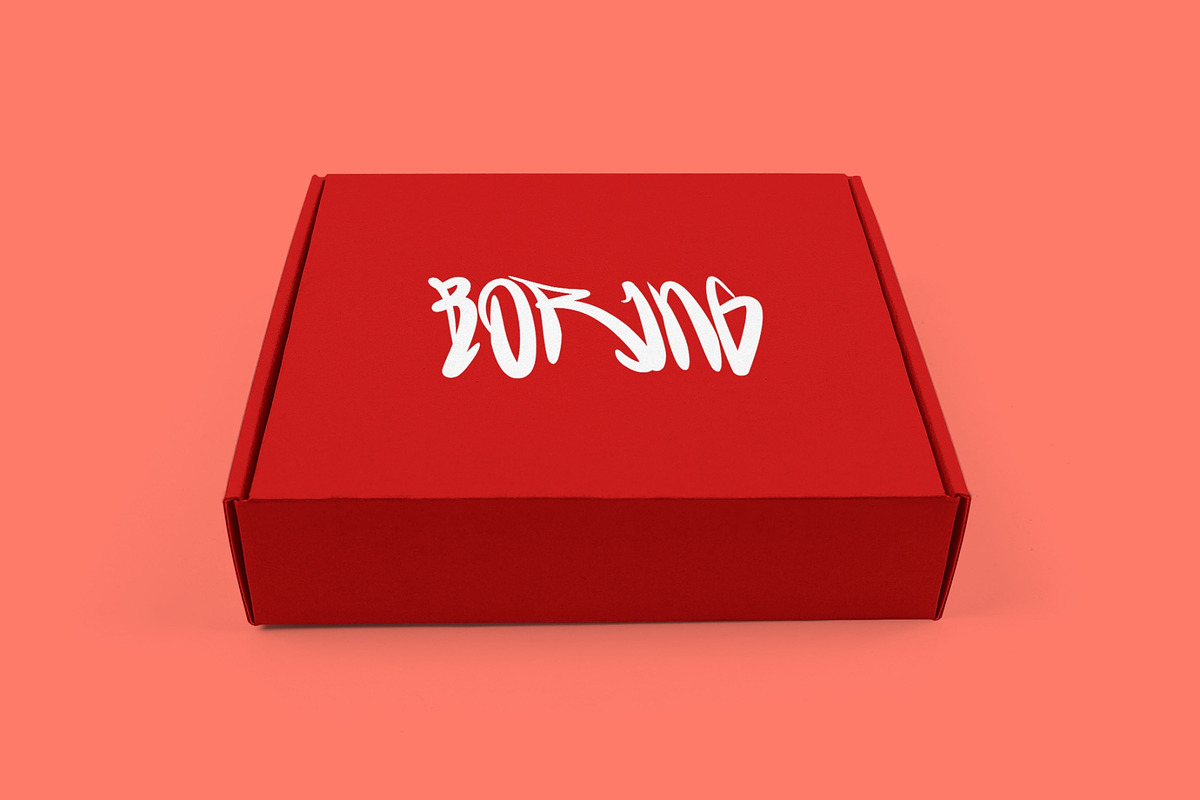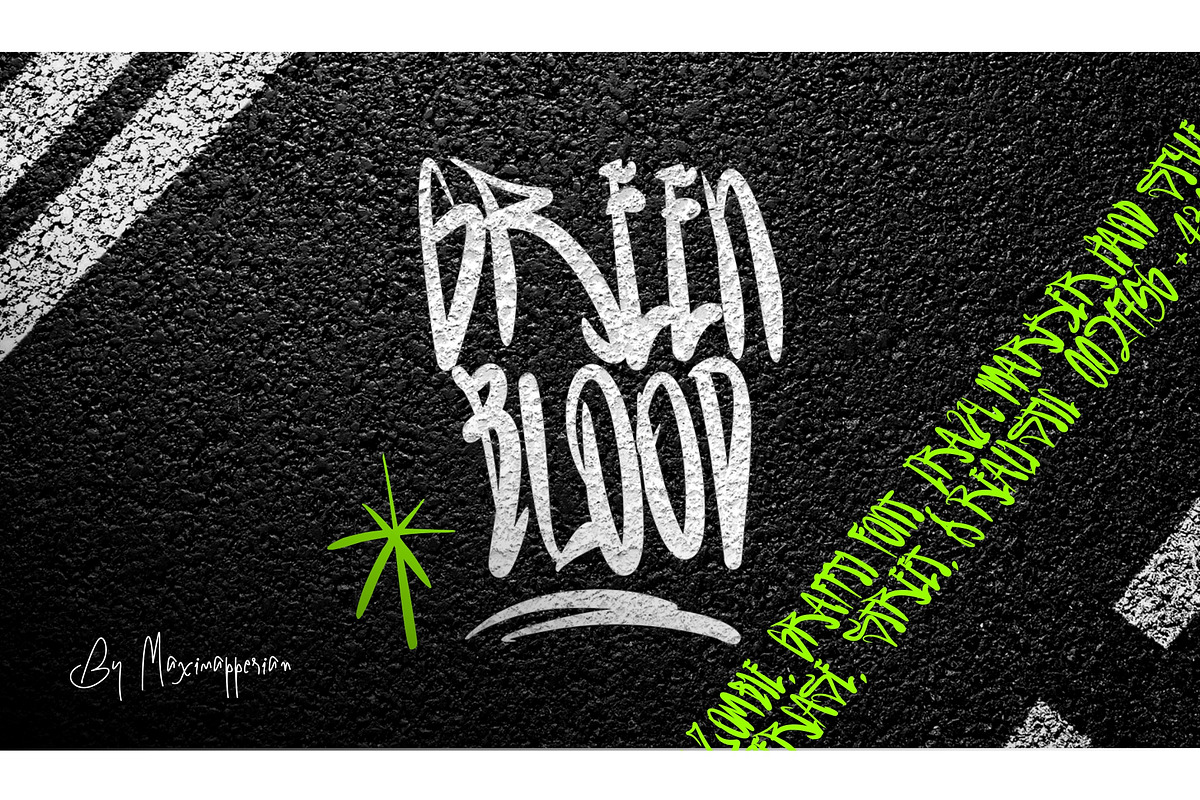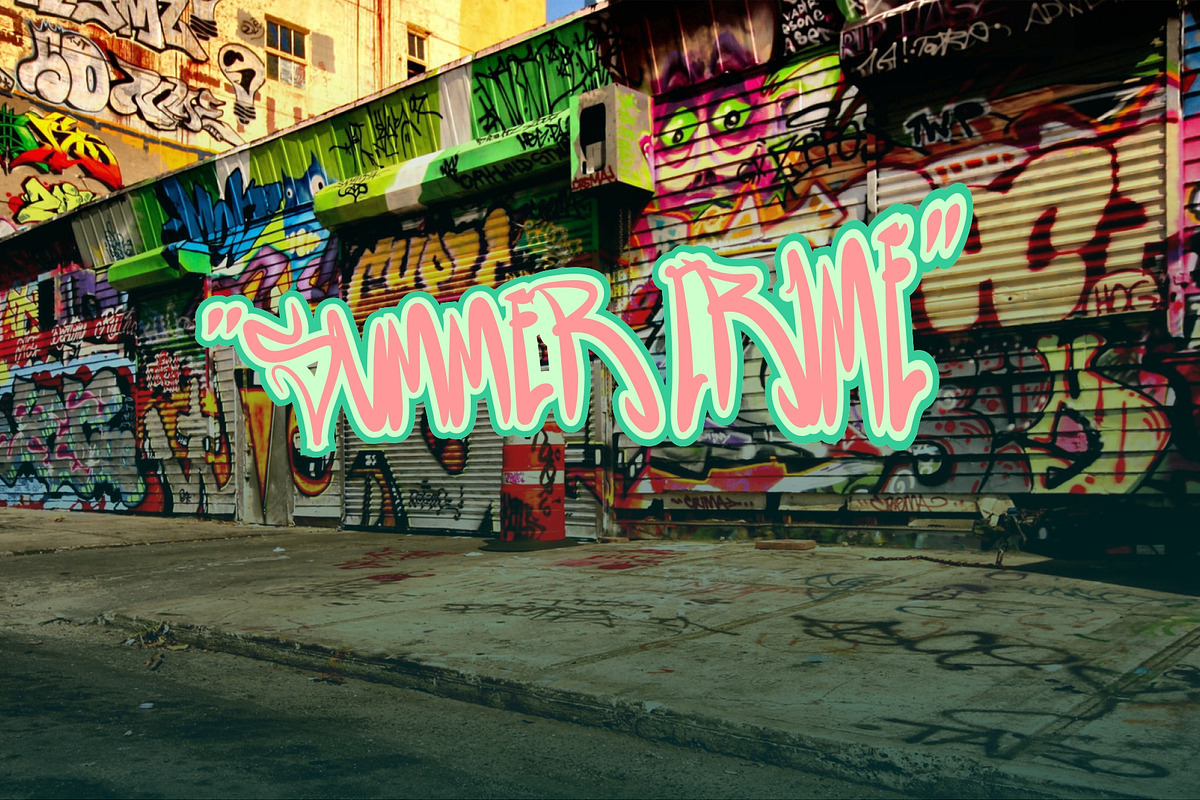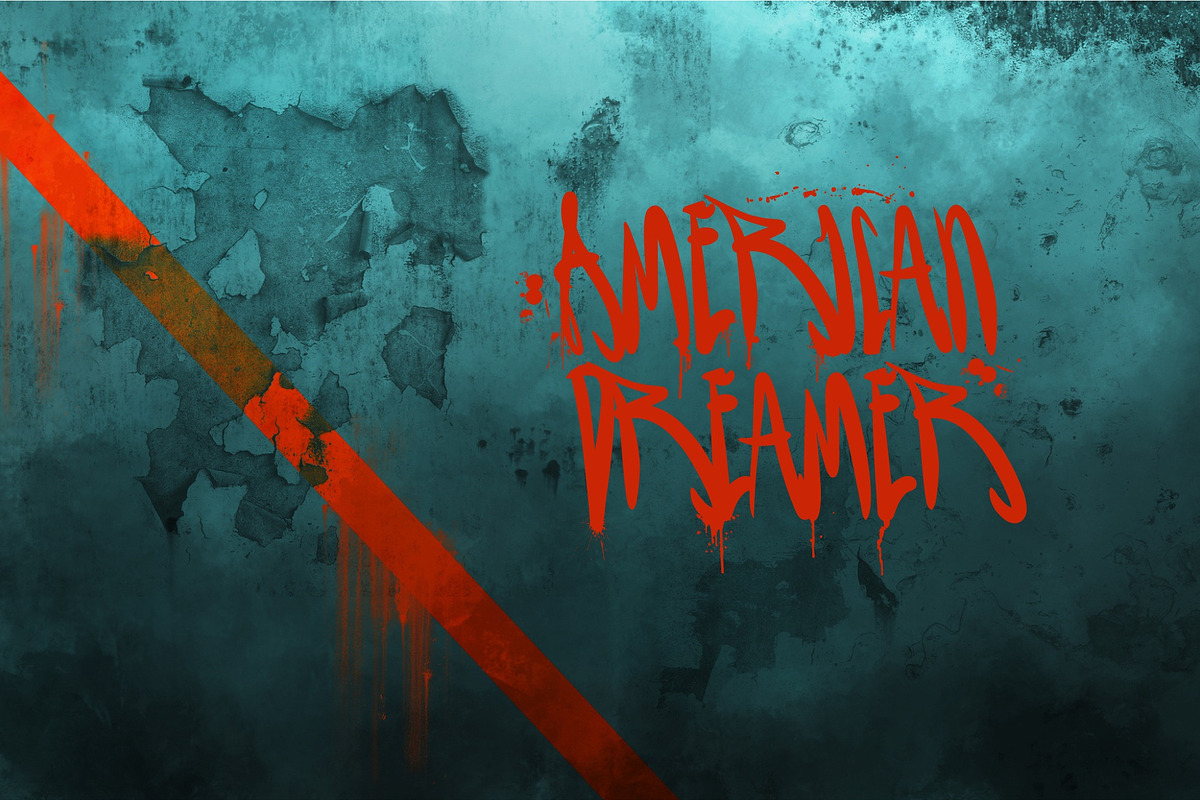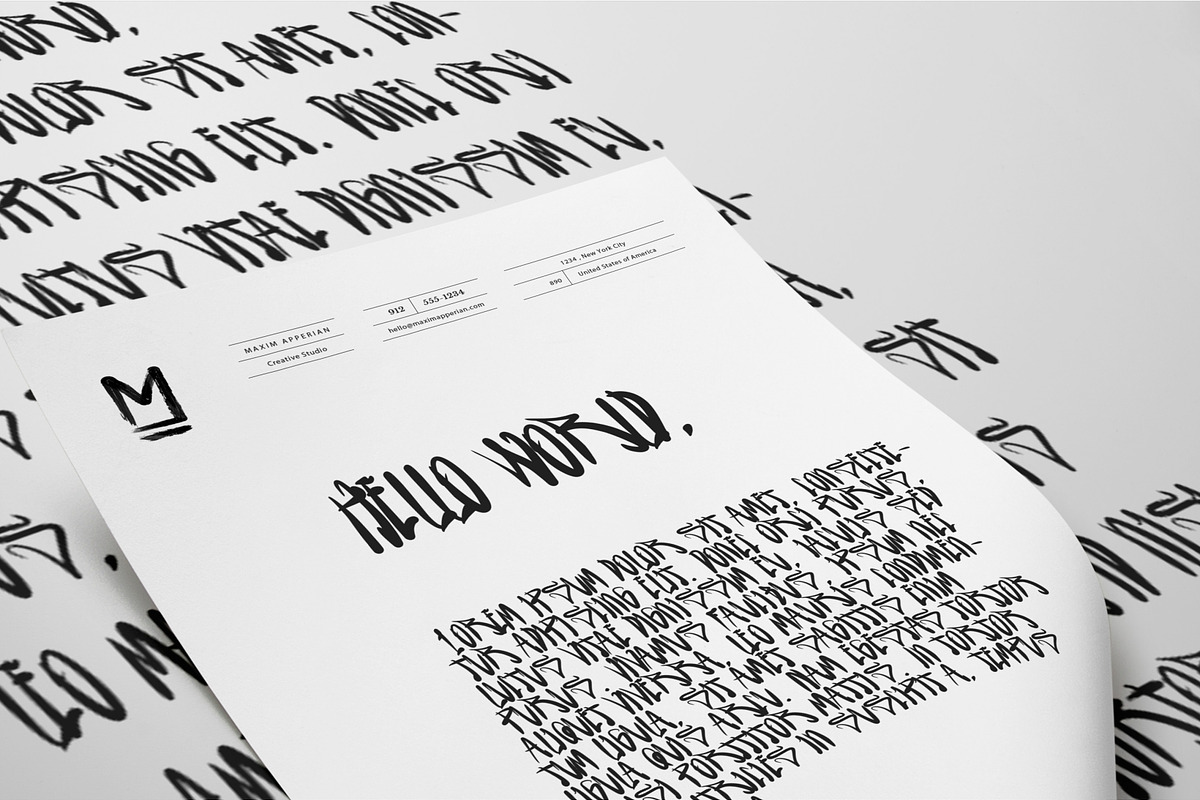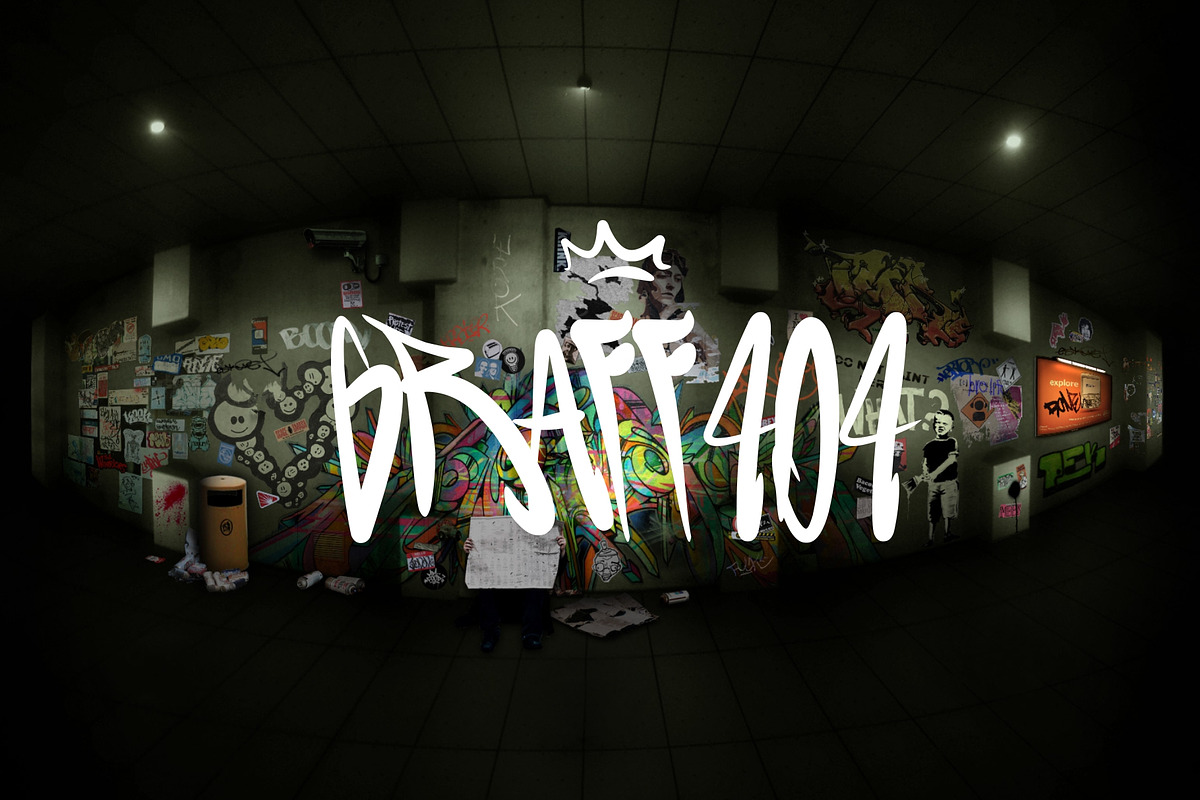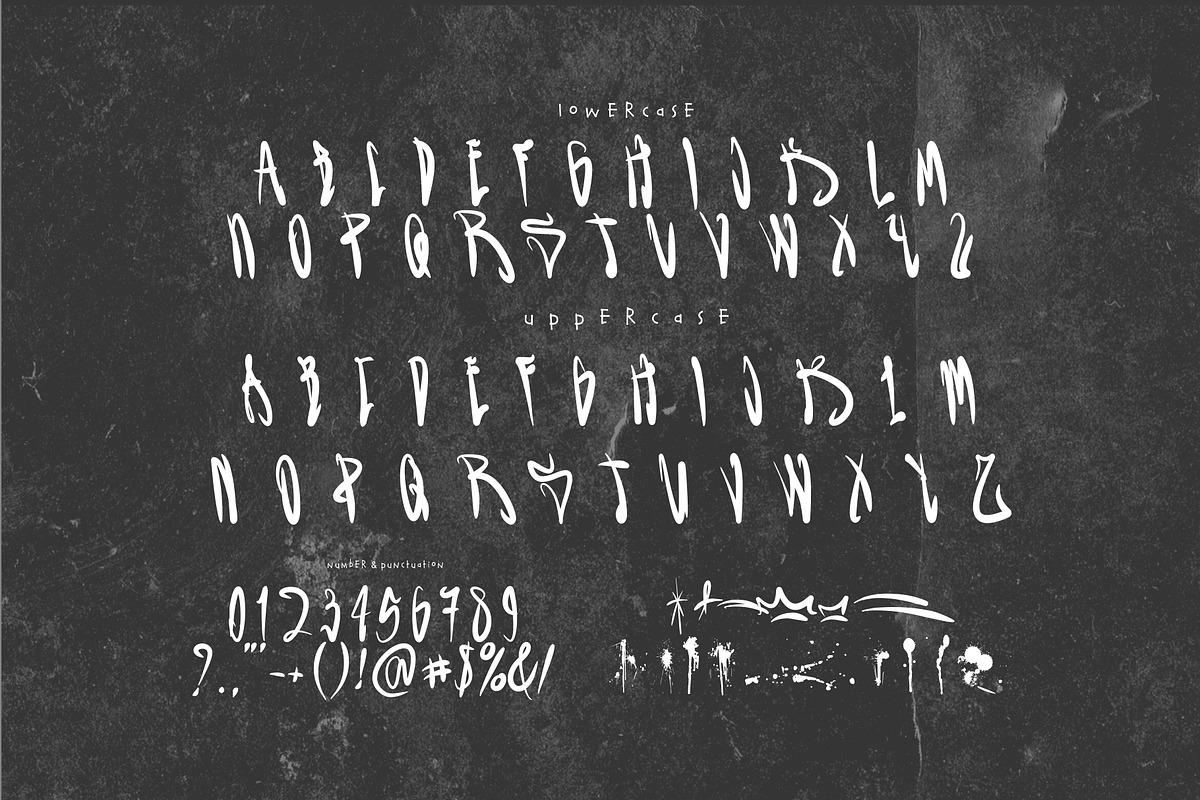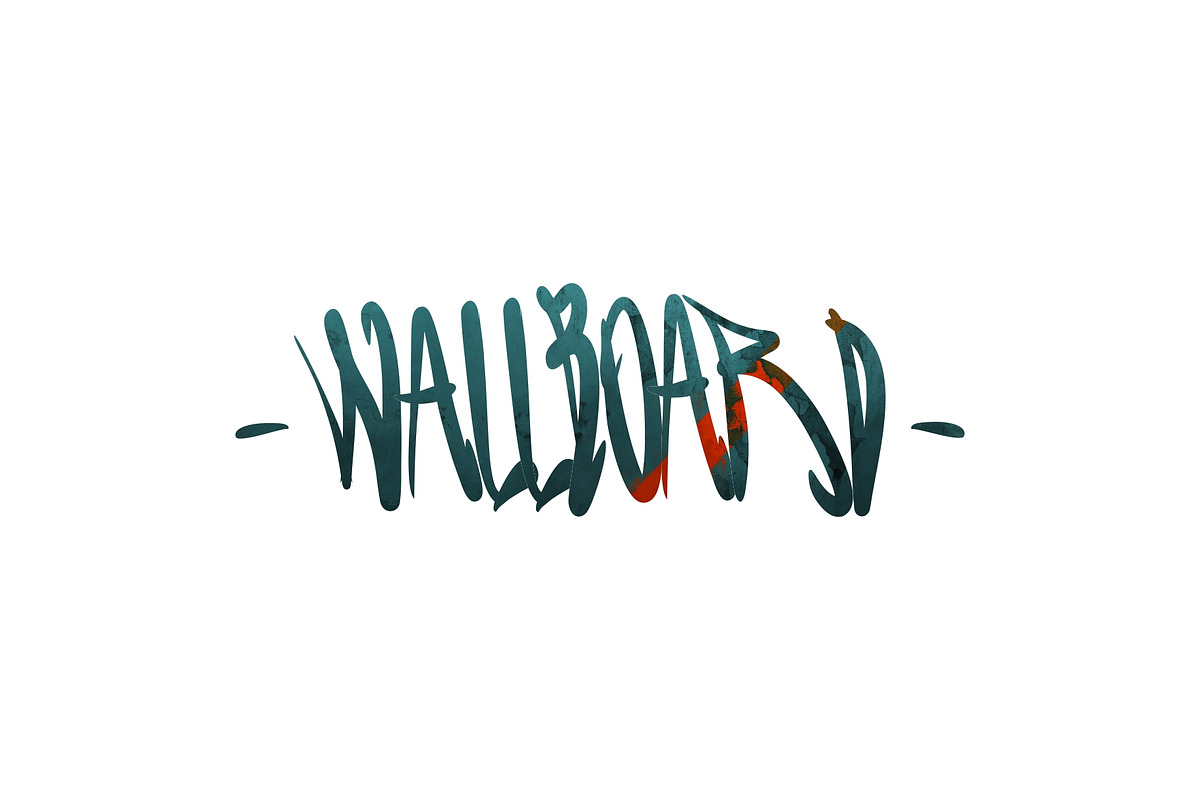
Green Blood Graffiti Font
Green Blood is a graffiti style font.
The font works great to make logos, clothing and short titles.
Uppercase letters, lowercase letters.
Green Blood Graffiti Font by Maxim apperian fits naturally into Branding, posters, packaging, typography.